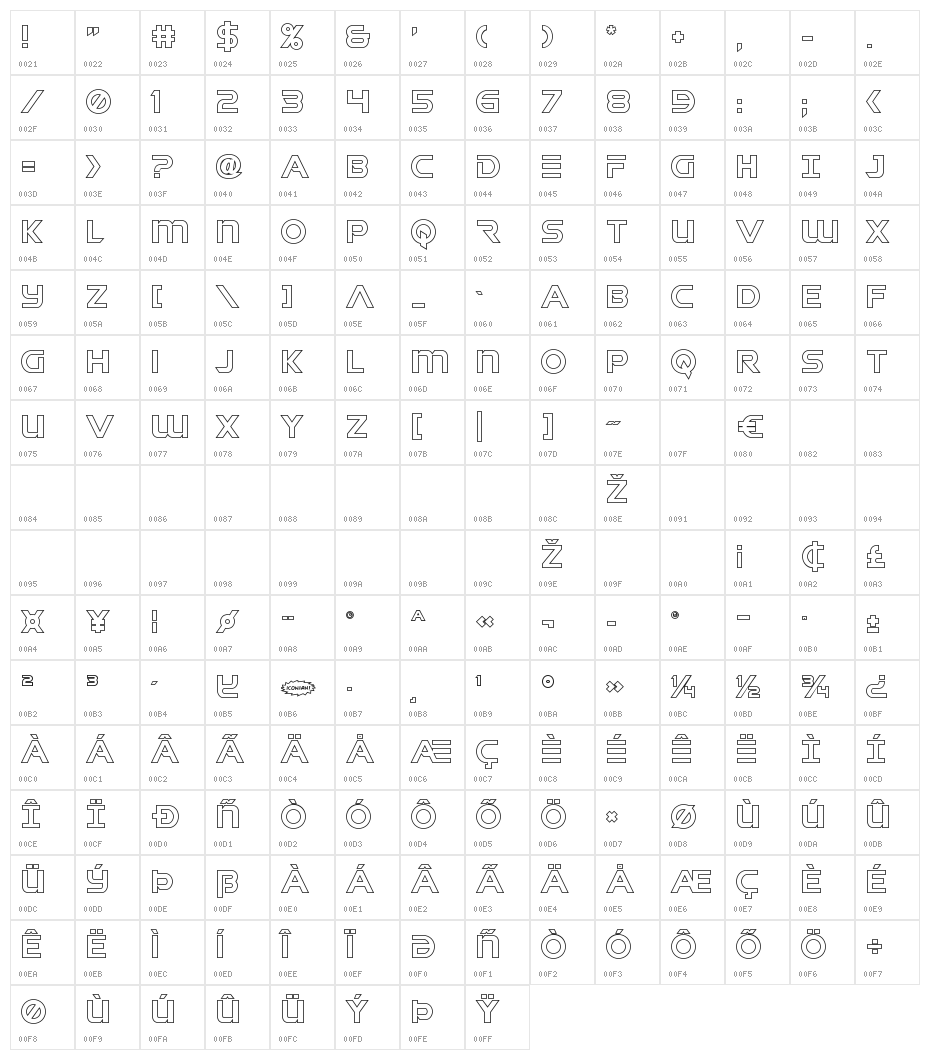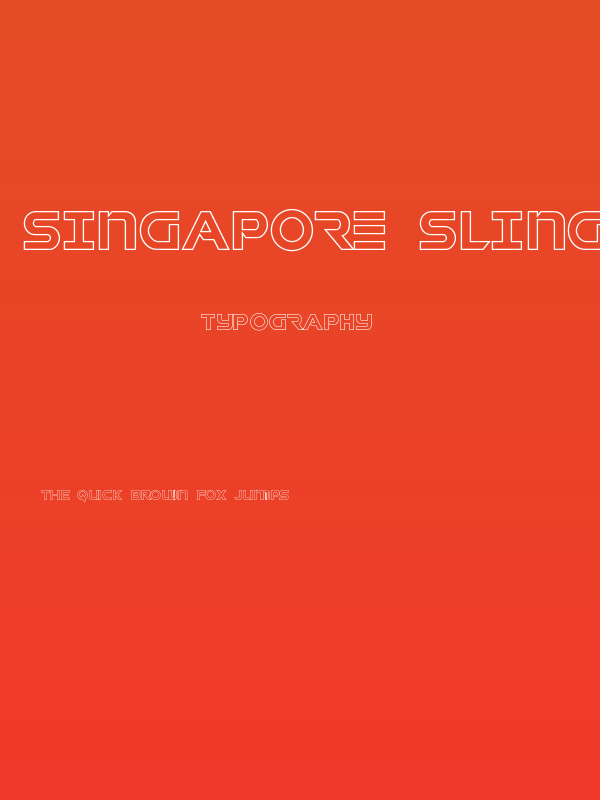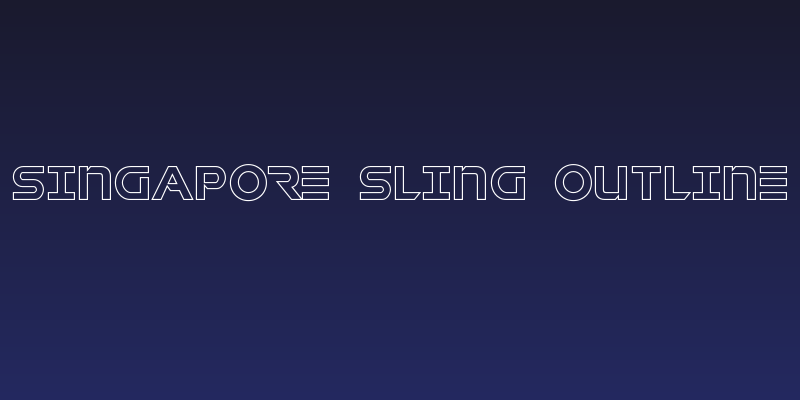
Singapore Sling Outline Font
Singapore Sling Outline Description
This font features a bold, geometric outline style that emphasizes clean lines and sharp angles. The characters are constructed with a consistent stroke width, creating a uniform and cohesive appearance. The uppercase and lowercase letters maintain a similar structure, enhancing readability while adding a modern, futuristic flair. The numerals and special characters follow the same design principles, ensuring a harmonious look across all glyphs. This font's outline design makes it stand out, offering a unique aesthetic that is both eye-catching and versatile.